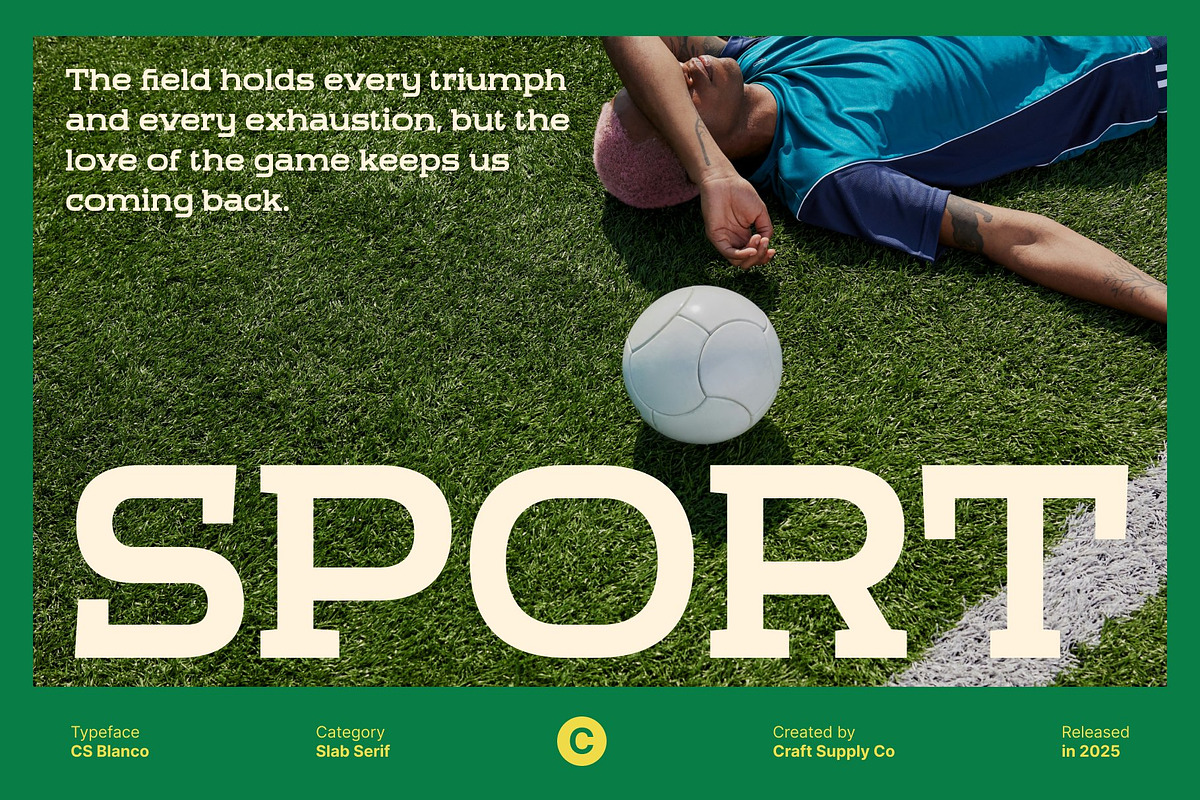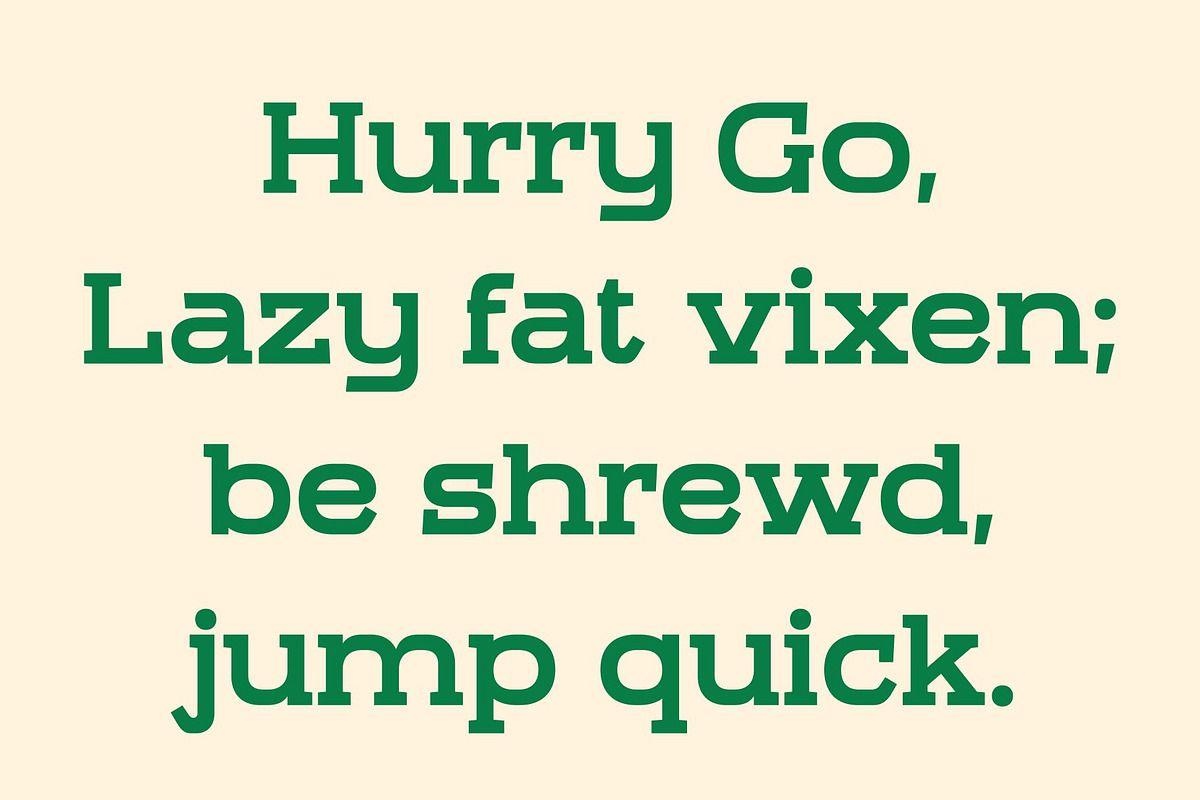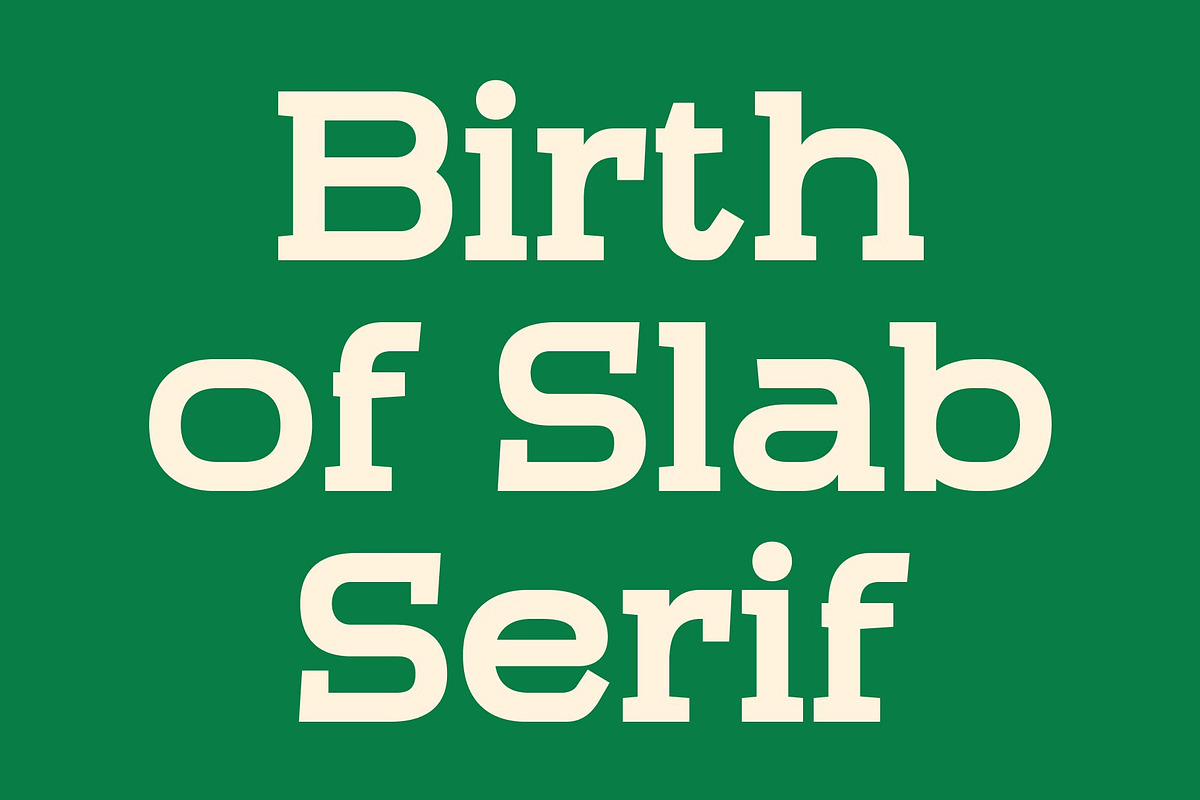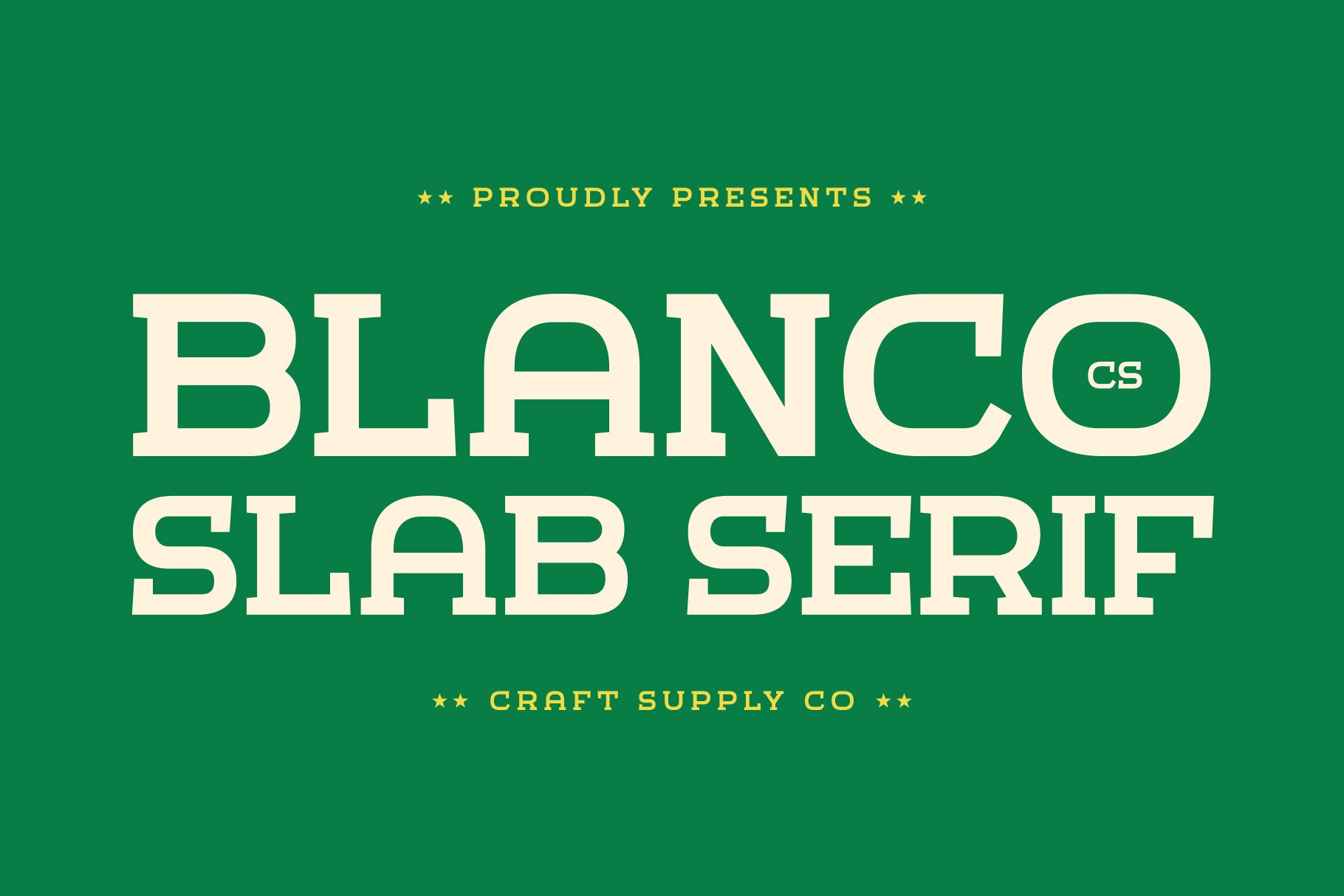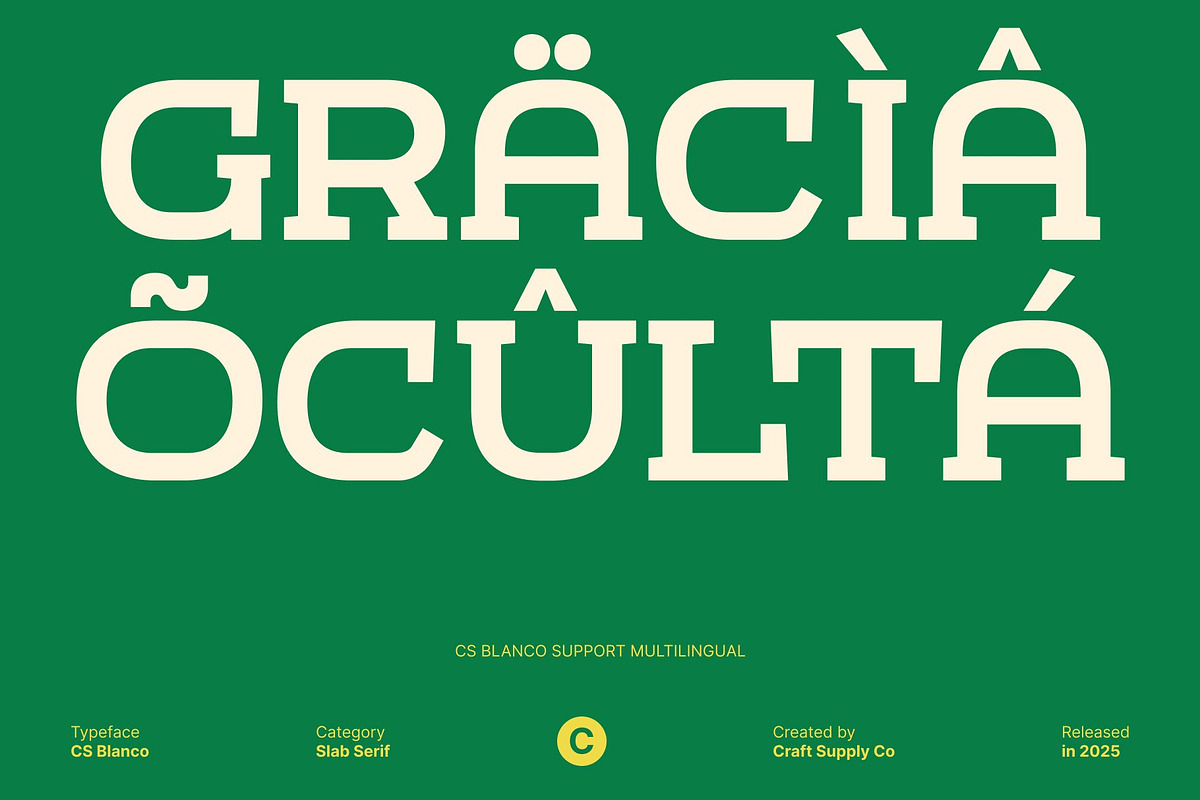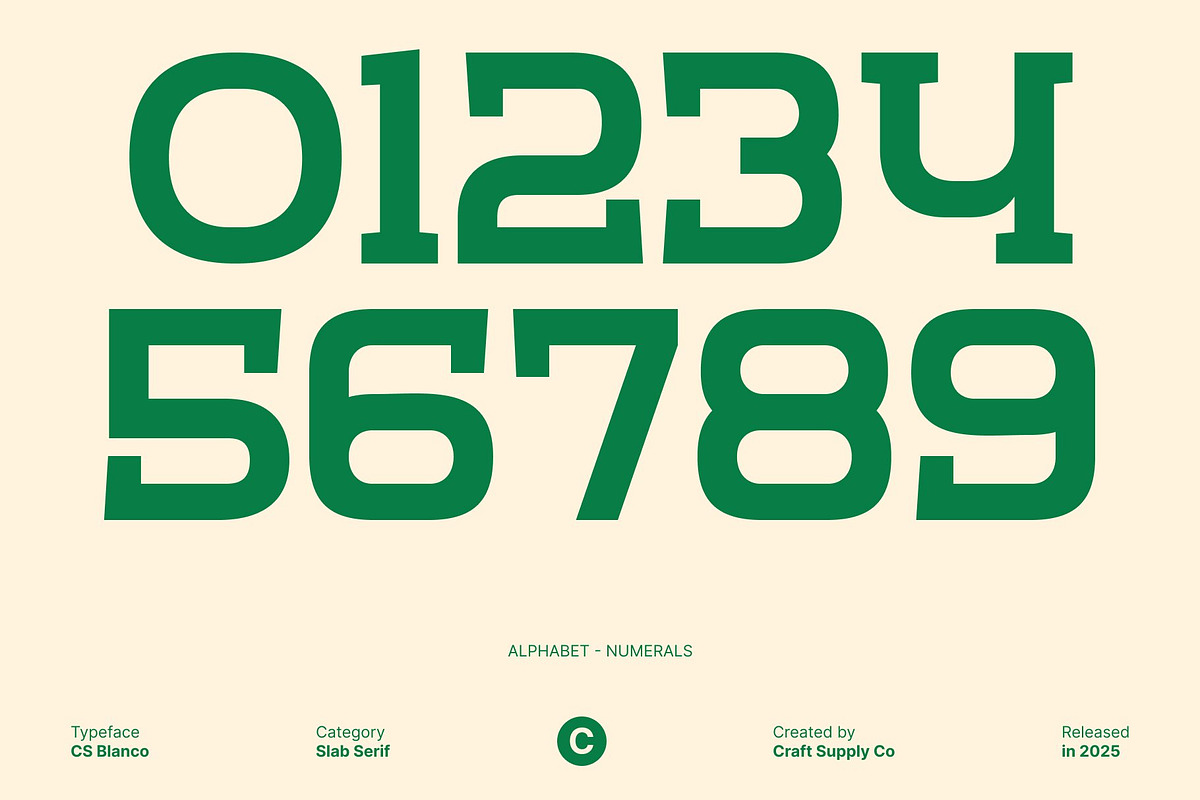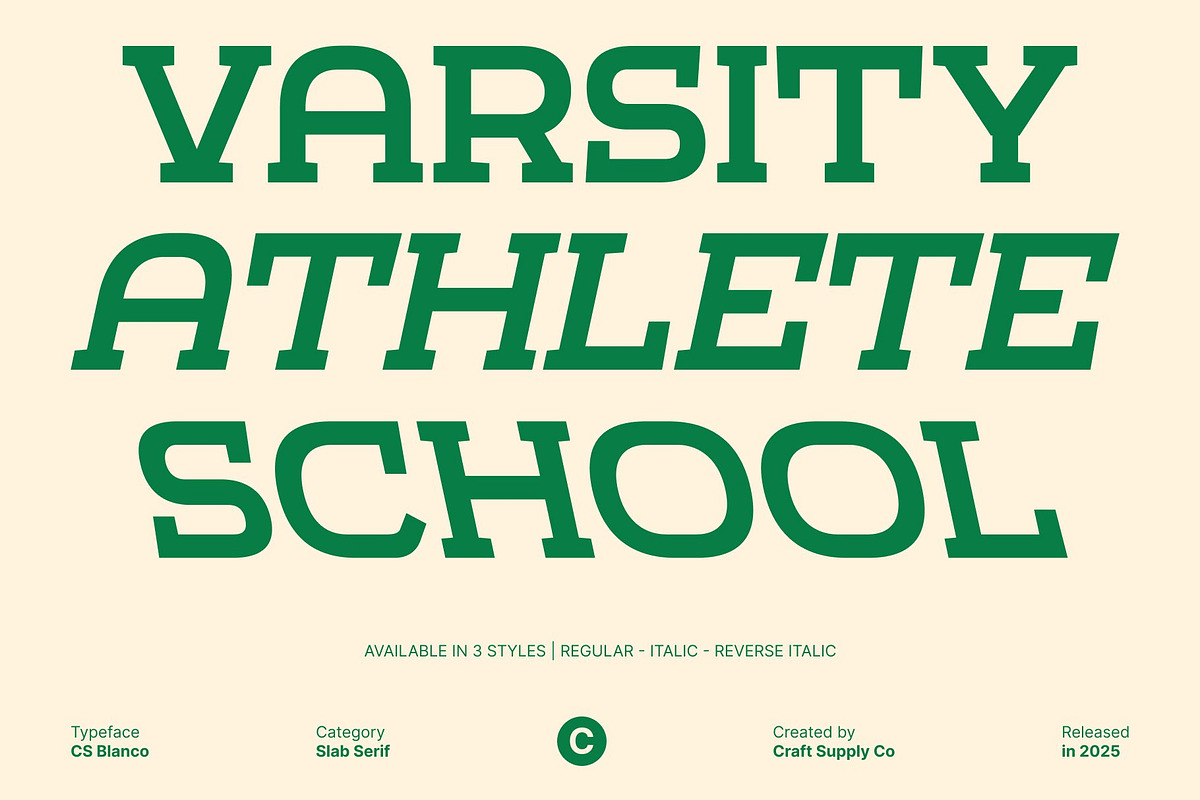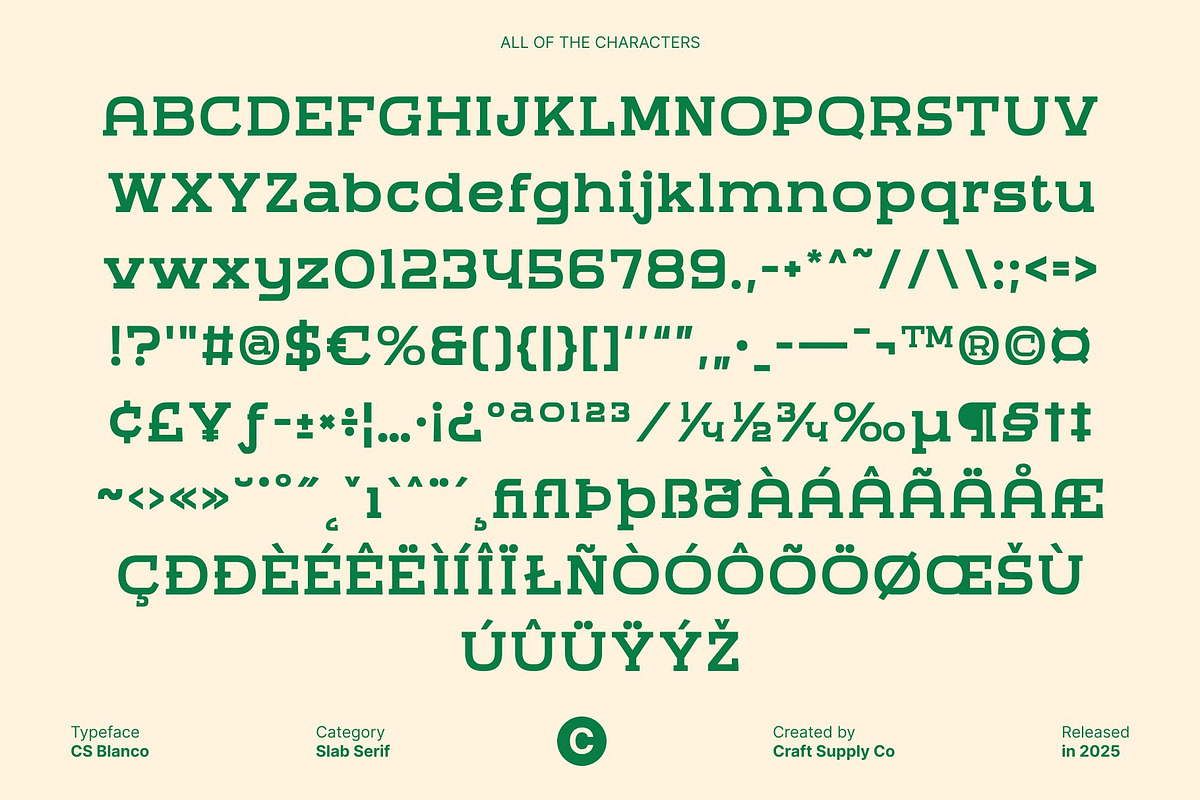
CS Blanco – Slab Serif Font
CS Blanco – Expanded Slab Serif with Strong, Assertive Presence
Expanded Slab Serif Forms for a Commanding Look This is a slab serif font designed with expanded proportions that instantly project strength and confidence. Its wide stance, sturdy serifs, and create a powerful visual identity that stands out in any layout. This expanded design not only enhances impact but also gives the font a modern, authoritative presence suited for high-visibility display work.
Outstanding Readability for Large-Scale and Long-Distance Viewing Crafted for maximum clarity, performs exceptionally well in environments where readability is crucial. Its strong letterforms and balanced width ensure that headlines, posters, advertisements, billboards, and signage remain clear and striking even from a great distance.
Modern, Sturdy, and Ideal for Impactful Branding With its geometry and expanded shape, offers a sturdy and assertive tone perfect for modern branding. The confidence in its slab serif construction makes it an excellent choice for logos, product packaging, event identities, and promotional materials. It communicates reliability, strength, and a clear sense of purpose in every application.
Perfect for Sports Designs and Energetic Visuals This font’s strong, athletic posture makes it a natural fit for sports-related designs. Its expanded weight conveys power and intensity, while its assertive forms amplify competitive energy. From team branding and sports apparel to event posters and score graphics, brings excitement and dominance to every layout.
- CS Blanco Regular
- CS Blanco Italic
- CS Blanco Reverse Italic